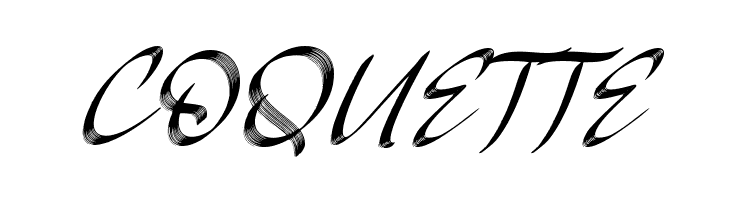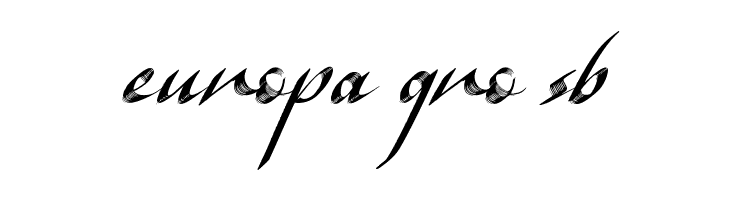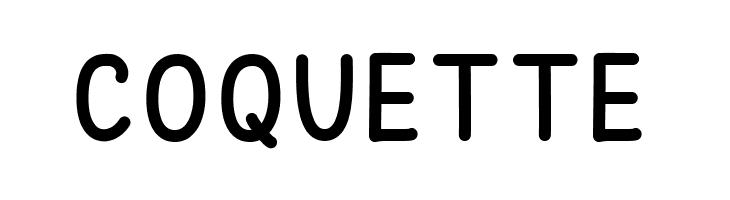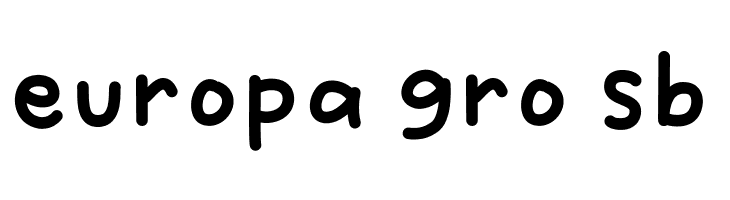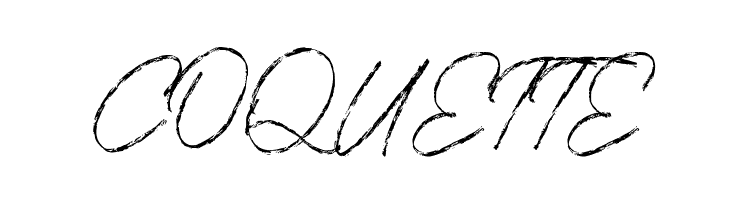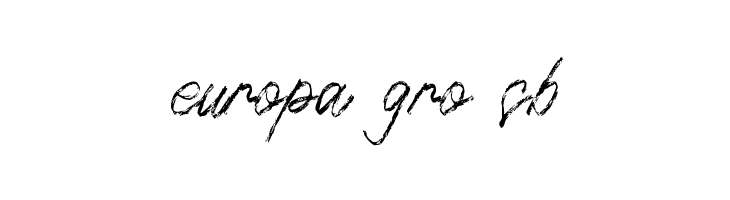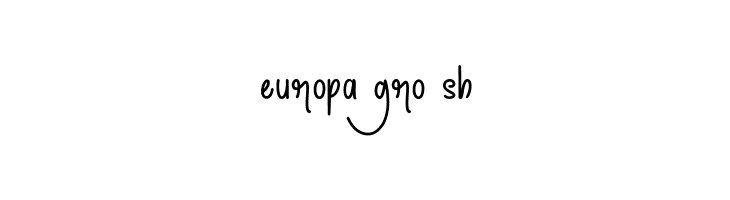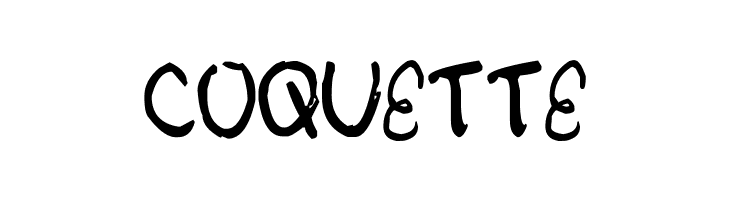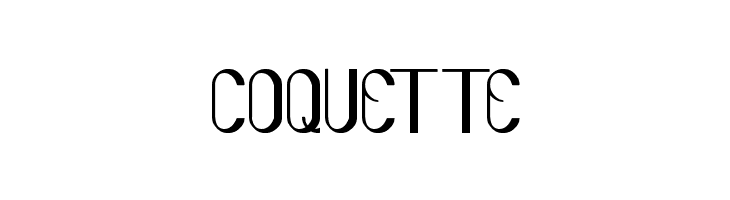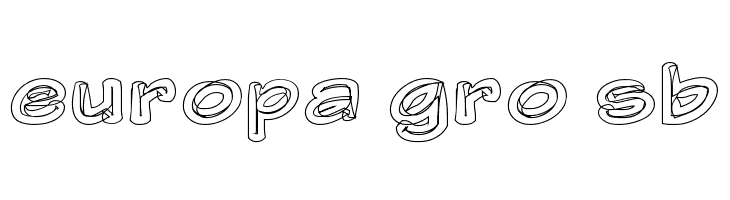
An elegant, flowing cursive script with artistic strokes.
A modern, playful font with geometric elements and dynamic contrast.
Playful handwritten font with tall, narrow letters.
A dynamic, cursive handwritten font with textured strokes and a personal touch.
A playful, artistic handwritten font with bold, expressive strokes.
A dynamic and flowing script font with elegant cursive letterforms.
A playful, handwritten font with rounded edges and a casual style.
A dynamic, hand-drawn font with a rough, textured style.